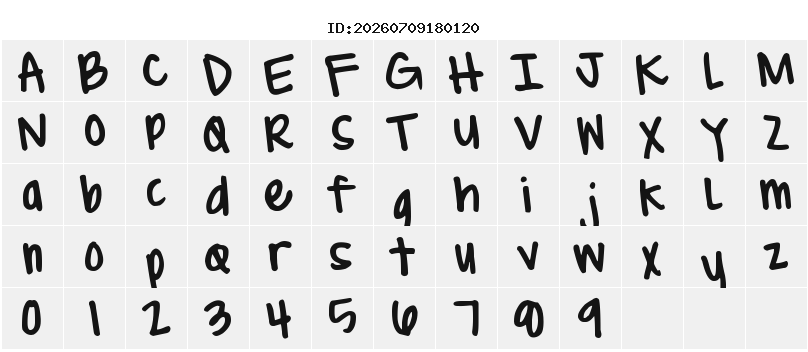
DJB Brit's Thick Pen Preview
• Font Name: DJB Brit's Thick Pen
• Font Style: Gras
• Full Font Name: DJB Brit's Thick Pen Bold
About DJB Brit's Thick Pen.ttf
DJB Brit's Thick Pen.ttf is a modern, elegant sans-serif font designed for ultimate readability and visual harmony. Perfect for branding, headlines, web design, and print materials.